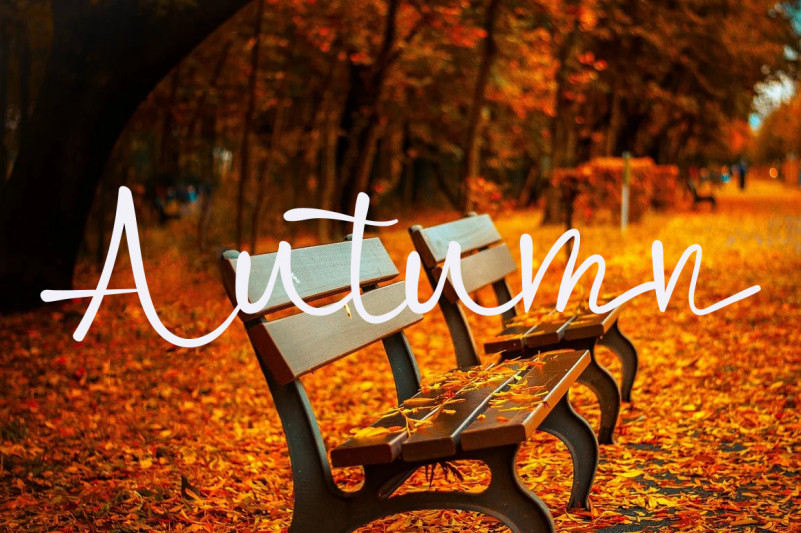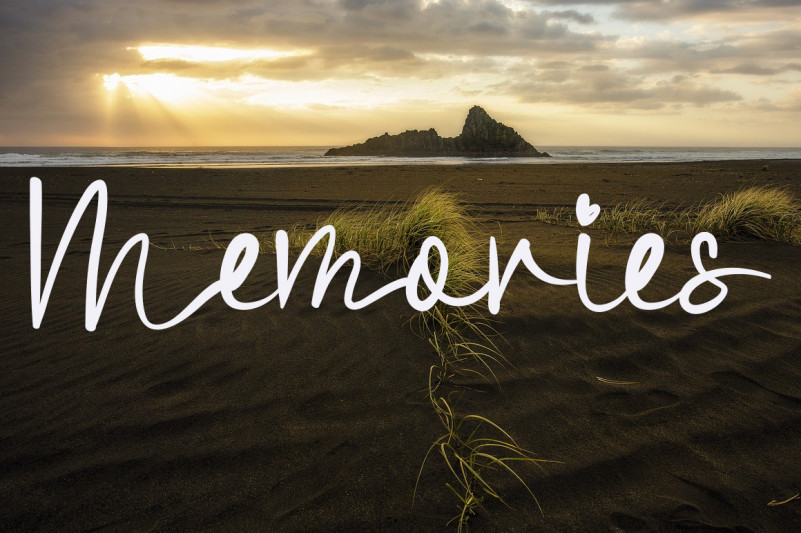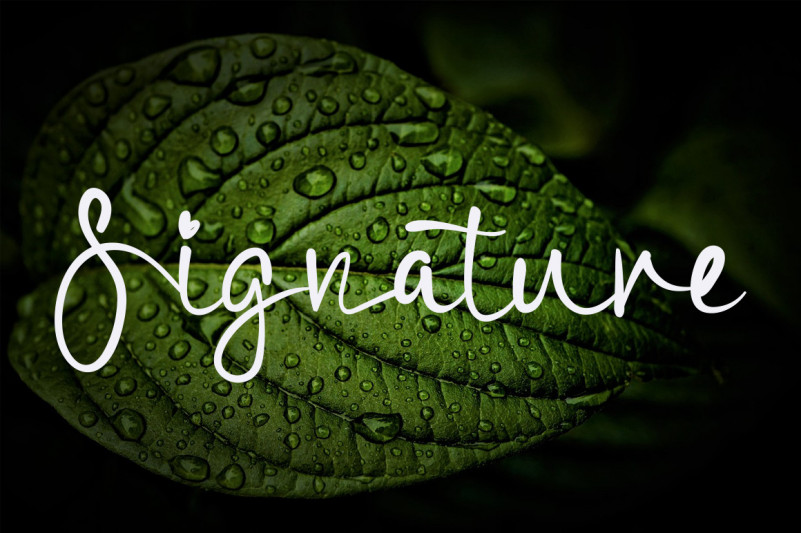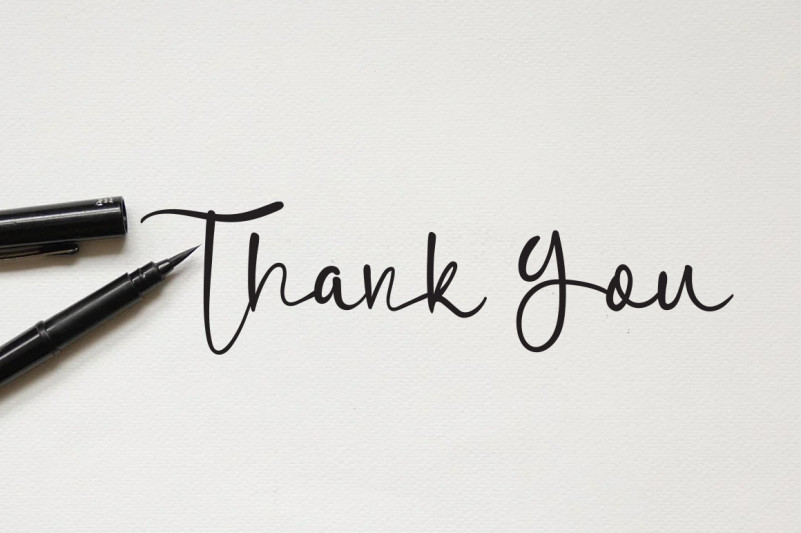
Rainbow Line Font
Rainbow Line Script Font
This is a dainty, genuine and cursive handwritten font. This gentle font will look gorgeous on a variety of design ideas. It will add a joyful and romantic touch to each of your projects!